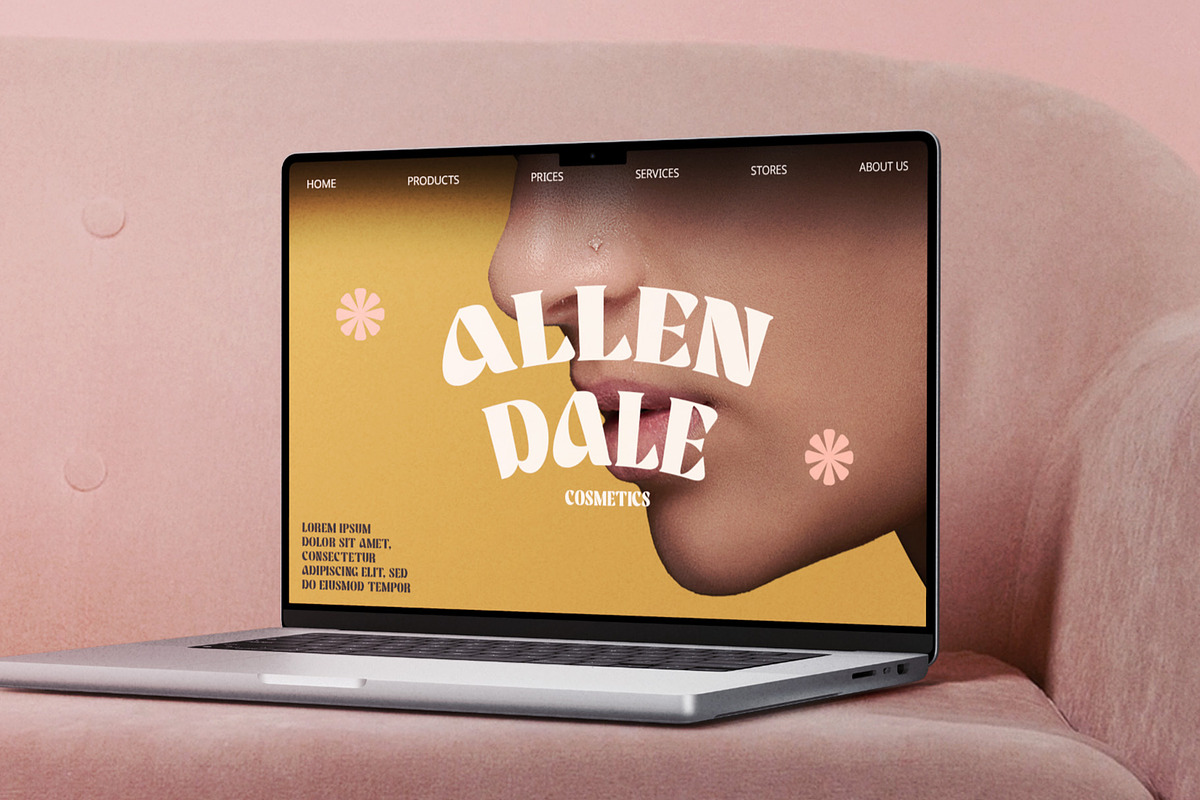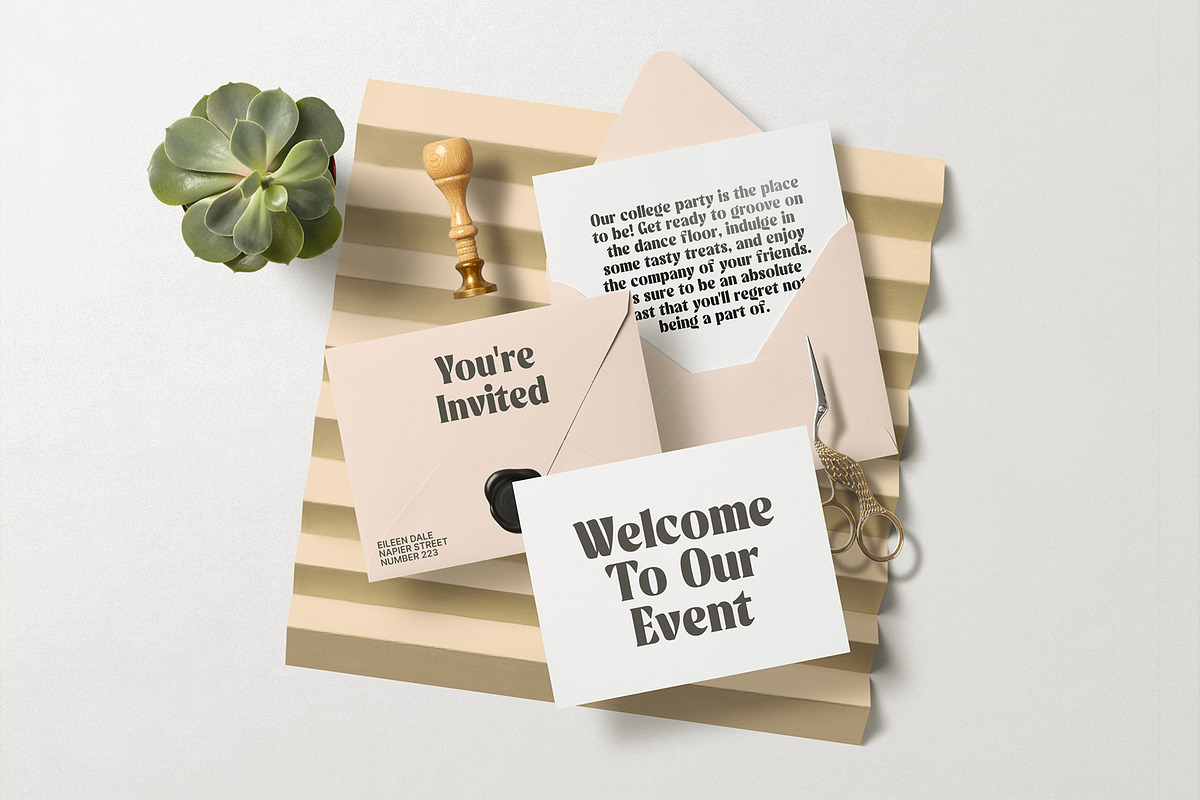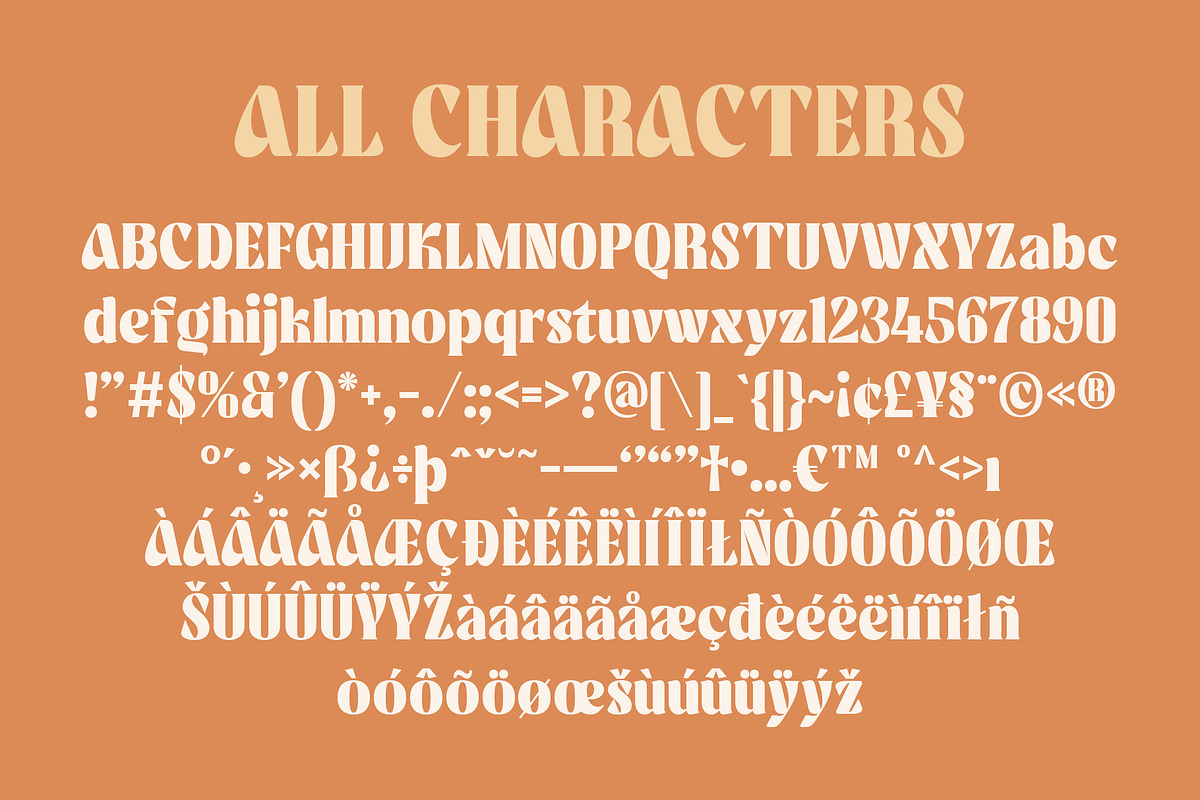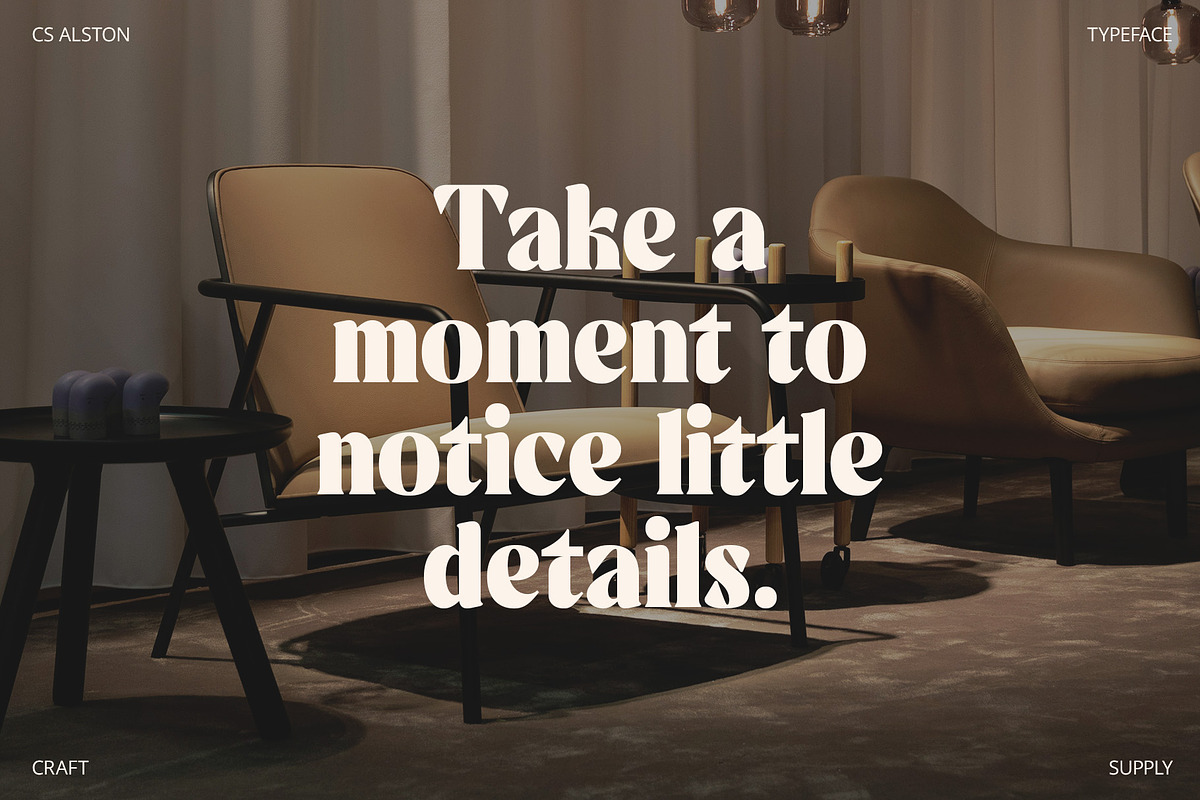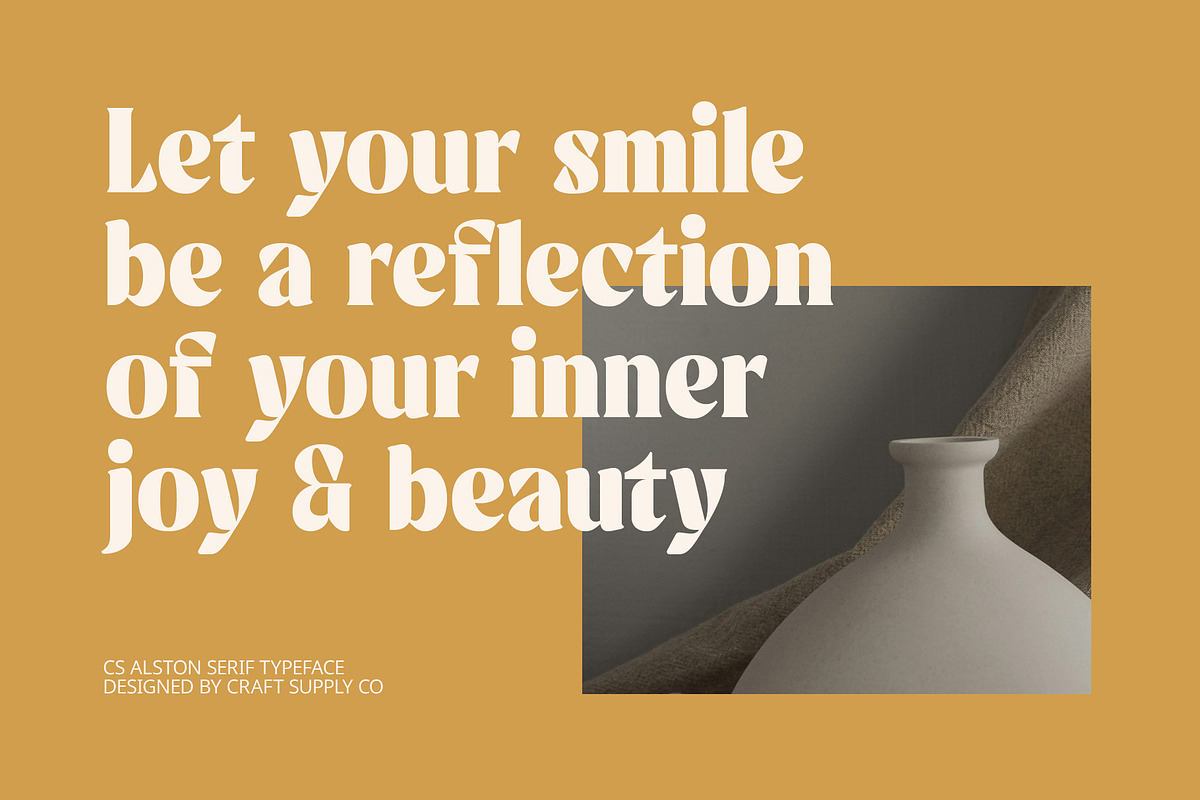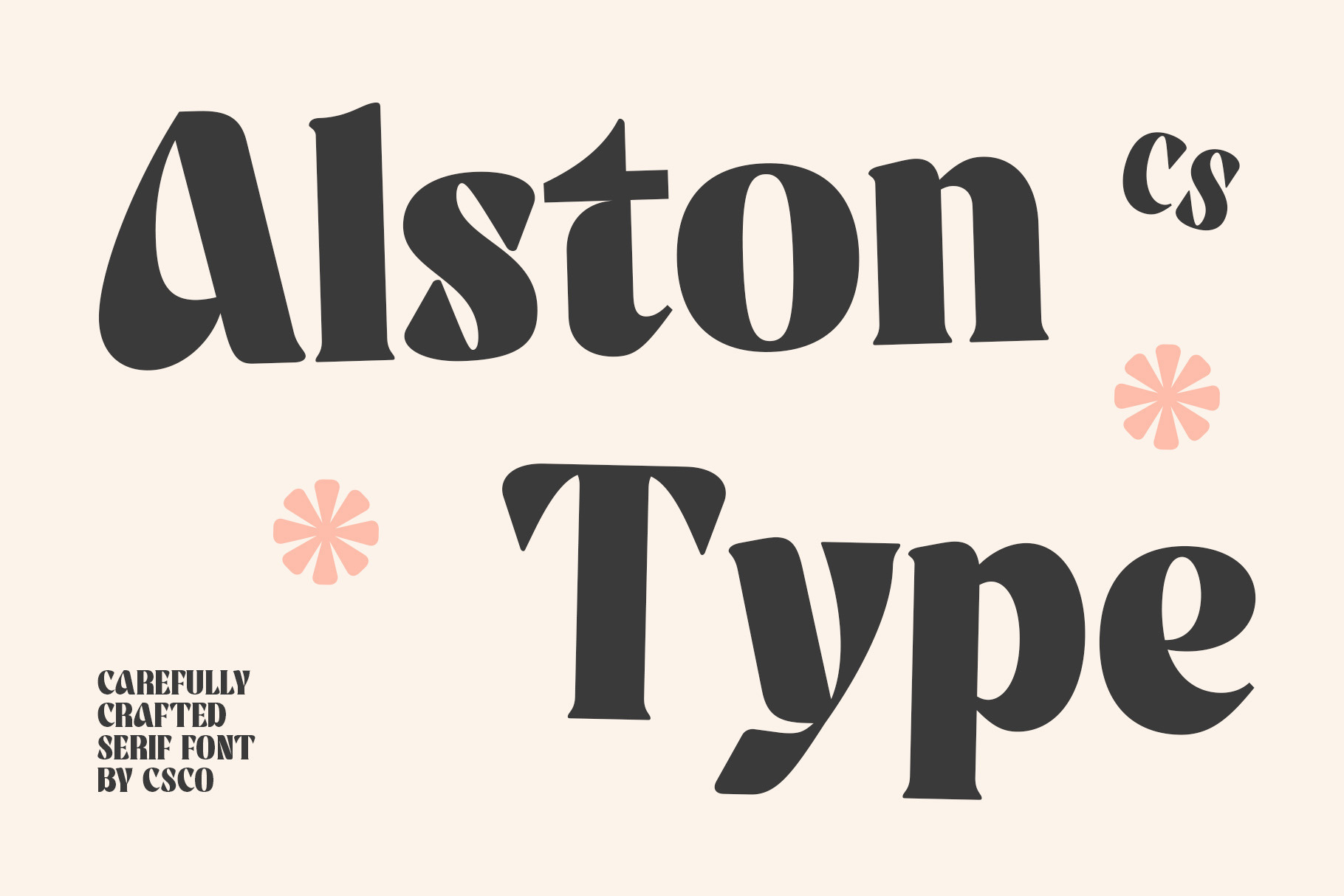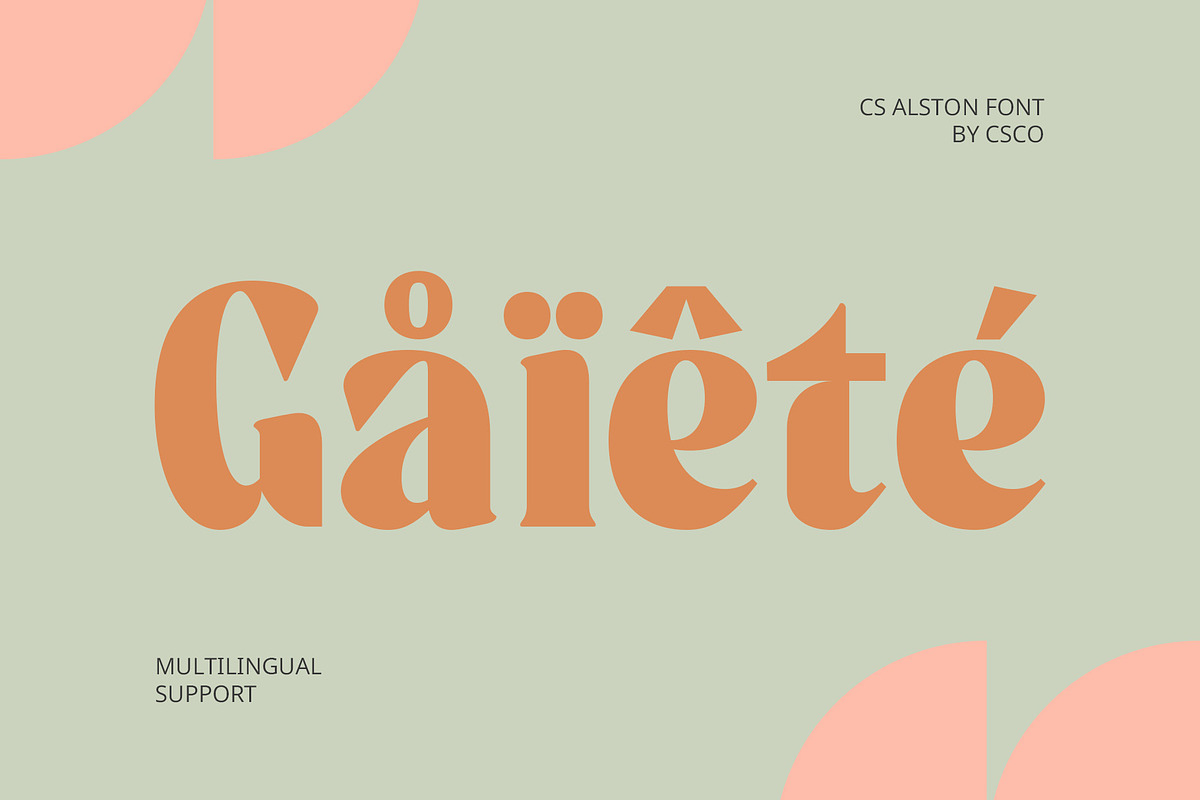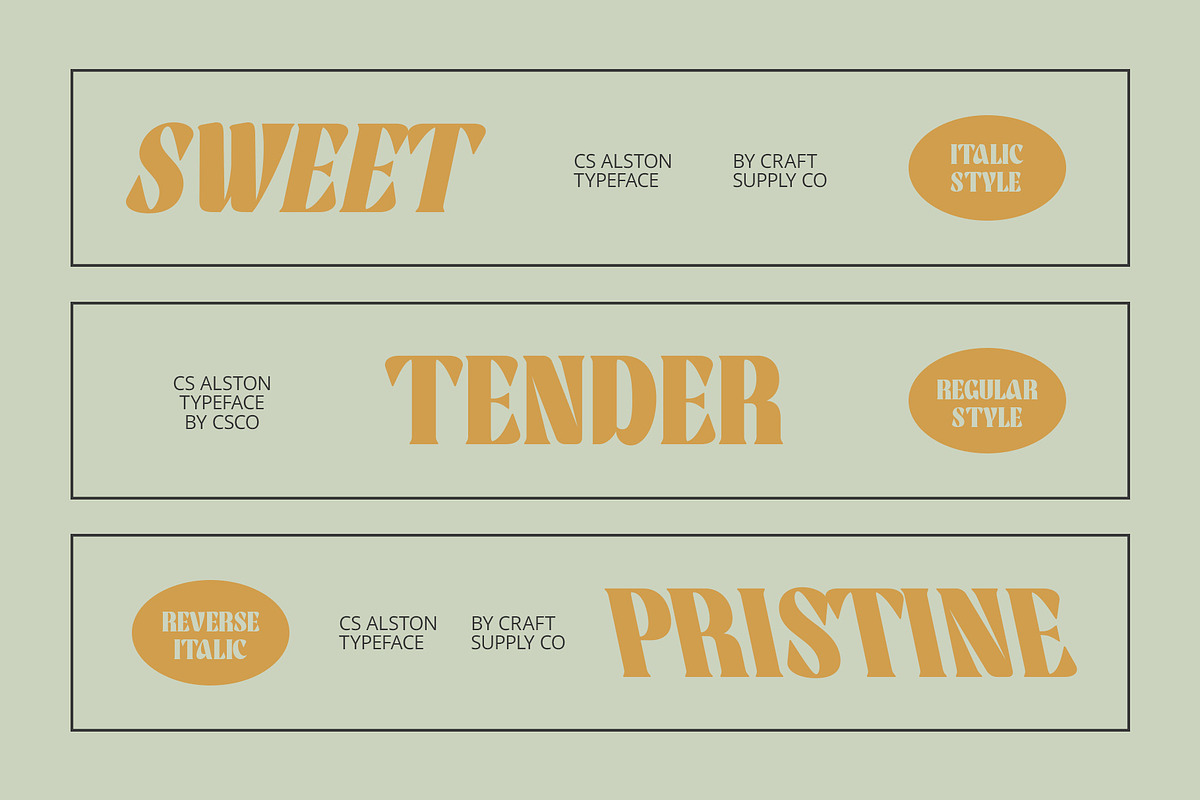
CS Alston – Bold Font
CS Alston – Bold Serif Font
Elegance and Charm CS Alston is a serif font with bold styling that radiates elegance and charm. Its strong yet smooth letter design exudes sophistication, making it perfect for projects that demand a luxurious and refined look. The bold character of the font adds weight and presence, ensuring your text stands out with a touch of class.
Sophisticated and Luxurious The well-defined serifs and balanced proportions of CS Alston contribute to its sophisticated and luxurious appearance. This font is ideal for high-end branding, where it can elevate logos and visual identities to convey a sense of prestige. Its bold nature also makes it suitable for magazine headlines, drawing readers’ attention with its striking and elegant form.
Perfect for Formal Invitations CS Alston’s elegant and charming design makes it an excellent choice for formal invitations. Whether for weddings, corporate events, or upscale parties, this font adds a touch of sophistication that sets the tone for a classy and memorable occasion. Its bold styling ensures readability while maintaining a graceful and polished look.
Versatile and Timeless Combining traditional serif elegance with bold modernity, CS Alston is a versatile font suitable for various design applications. From luxury branding to editorial layouts and high-profile presentations, this font brings a timeless charm to any project, ensuring your designs exude confidence and style.
- CS Alston Regular
- CS Alston Italic
- CS Alston Reverse Italic